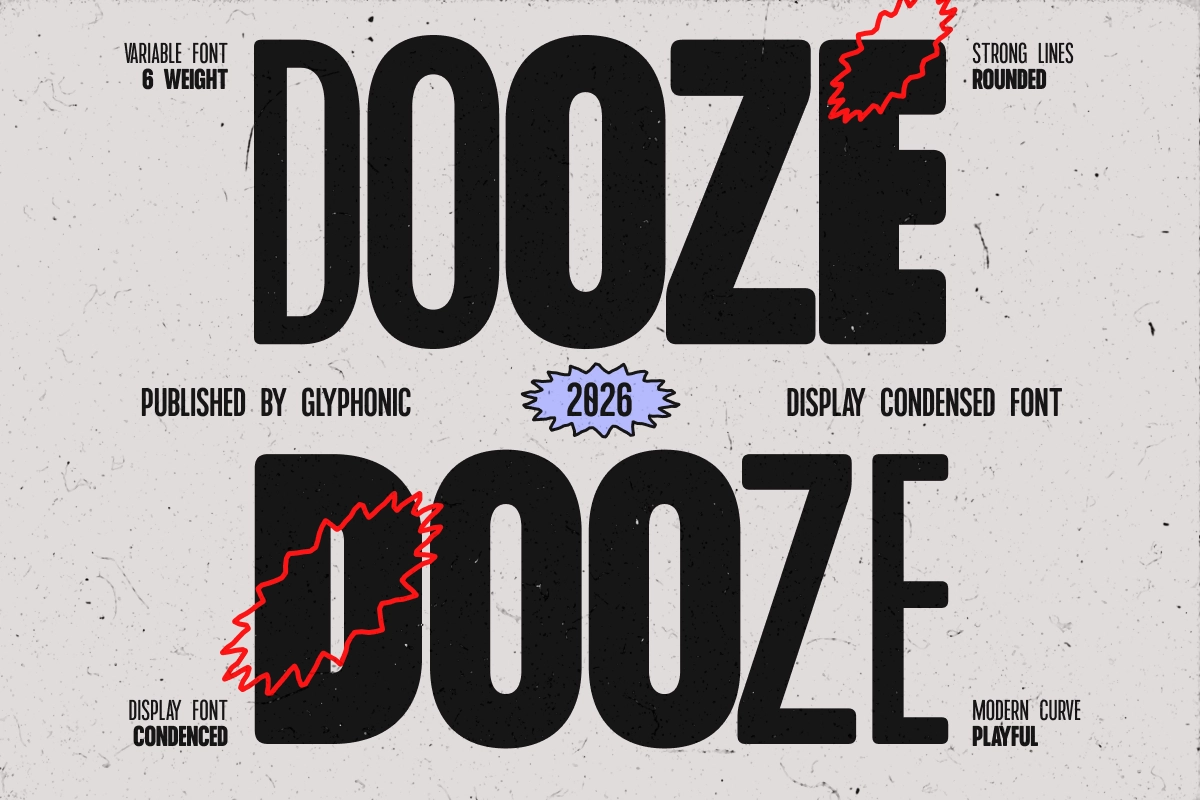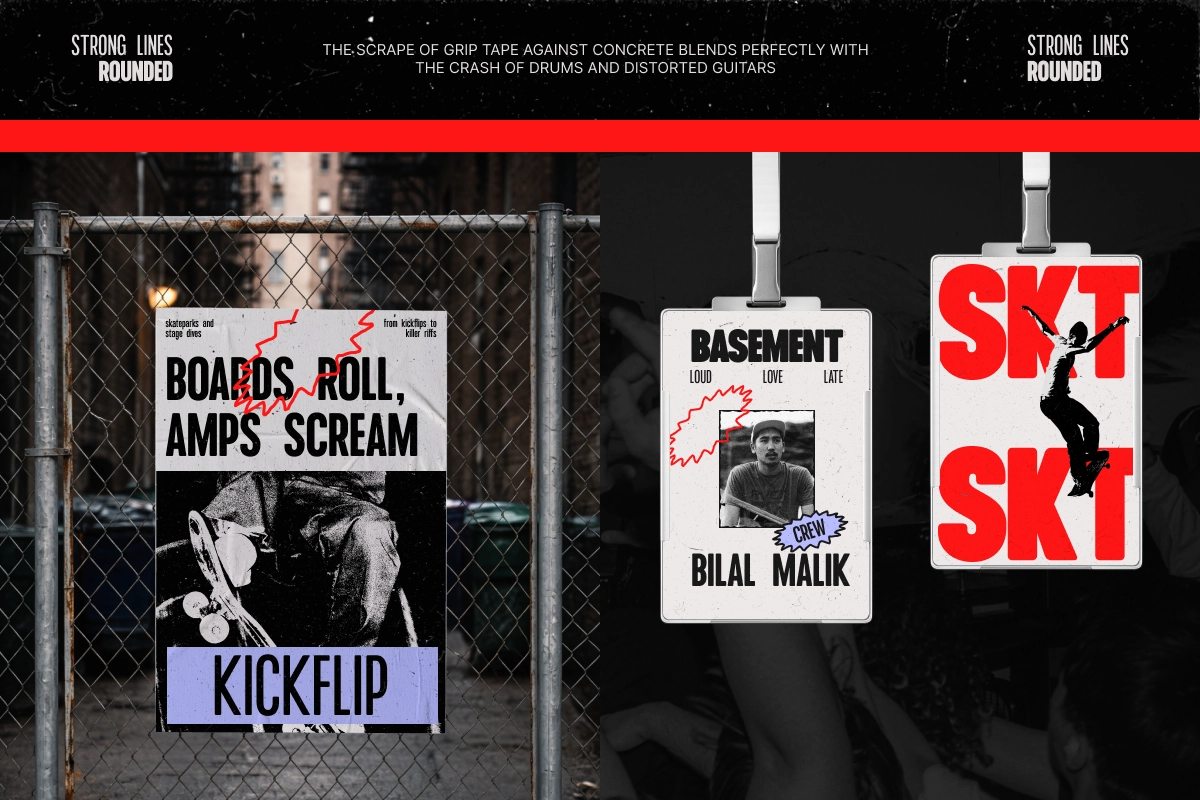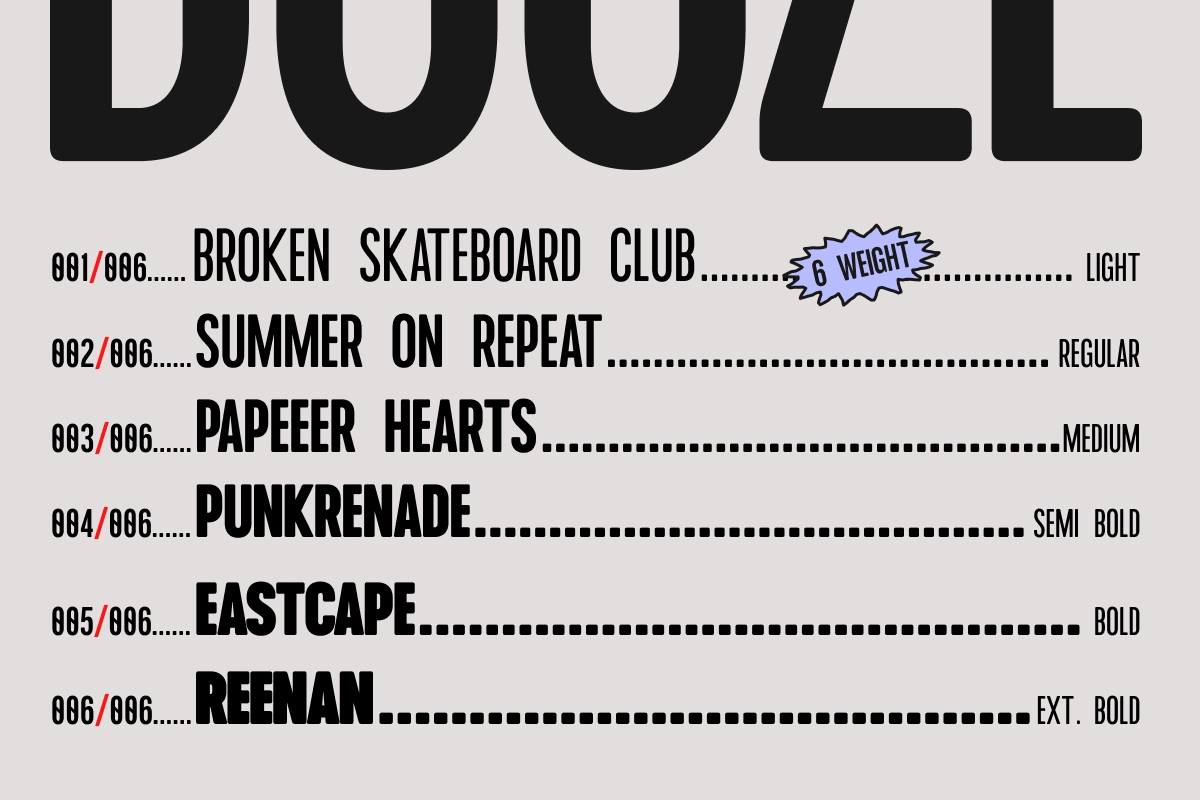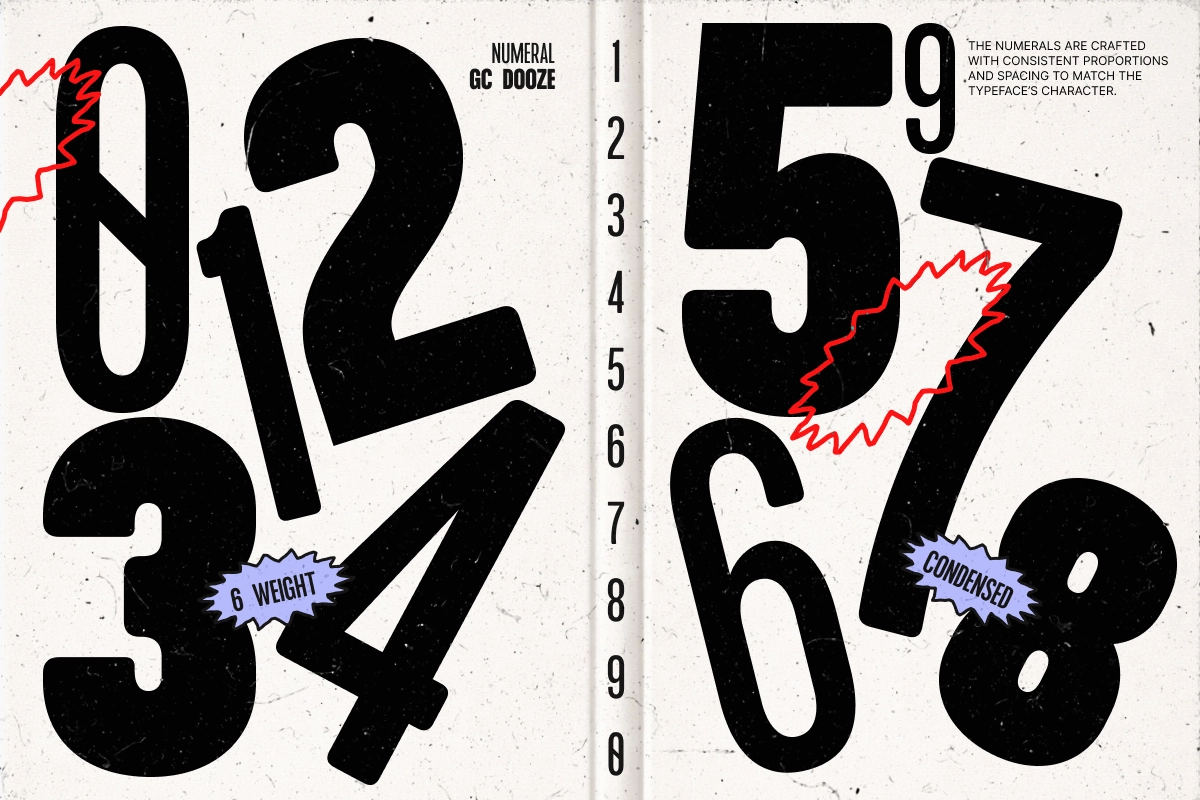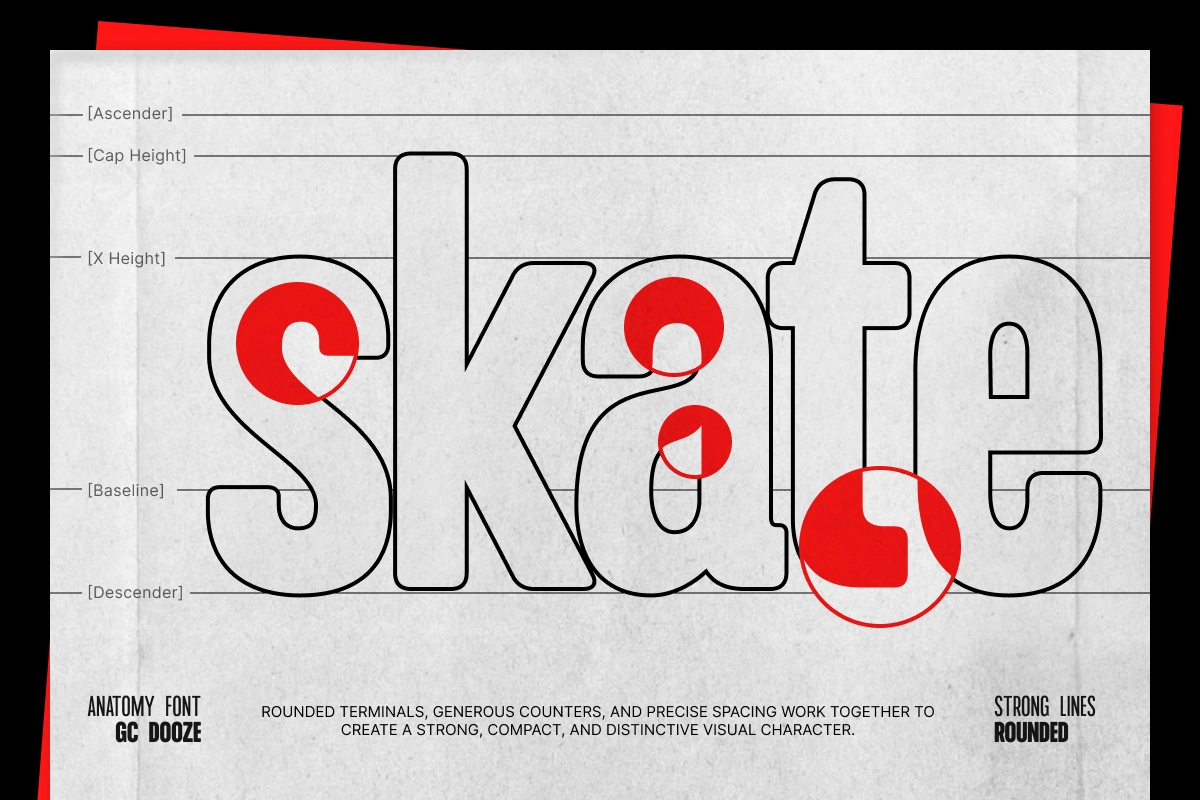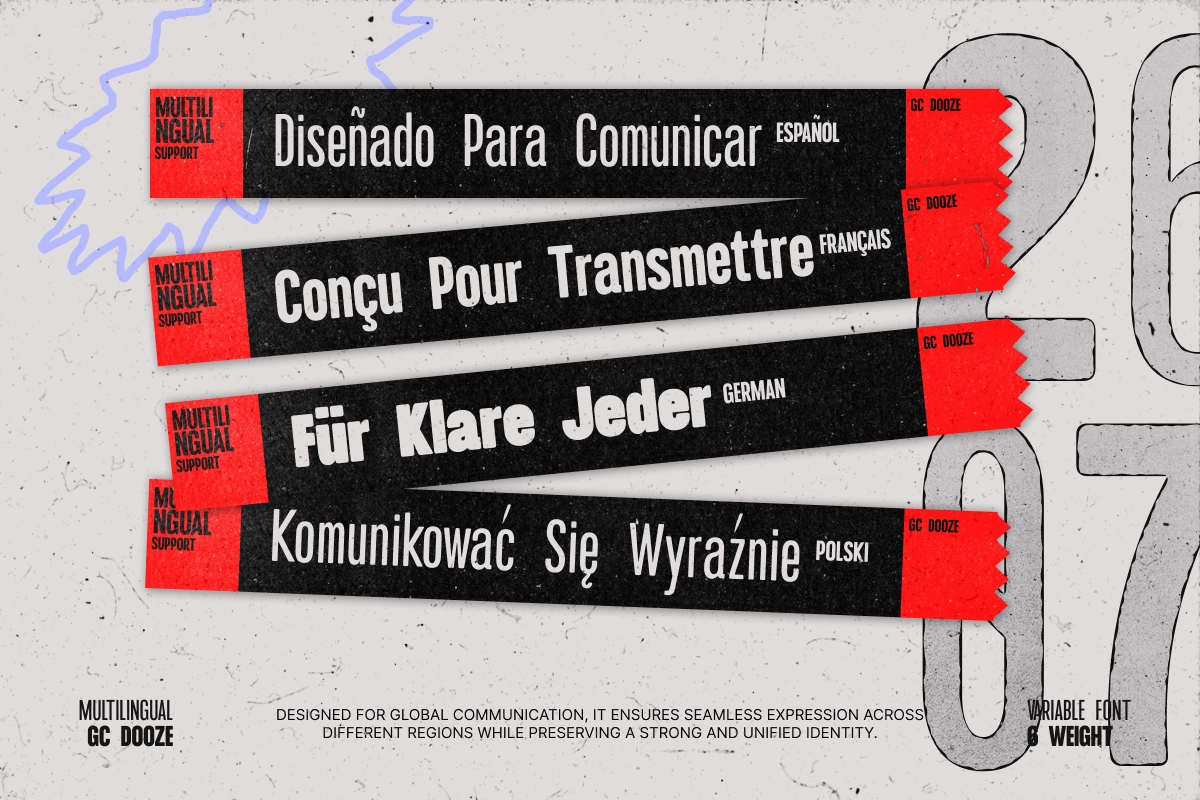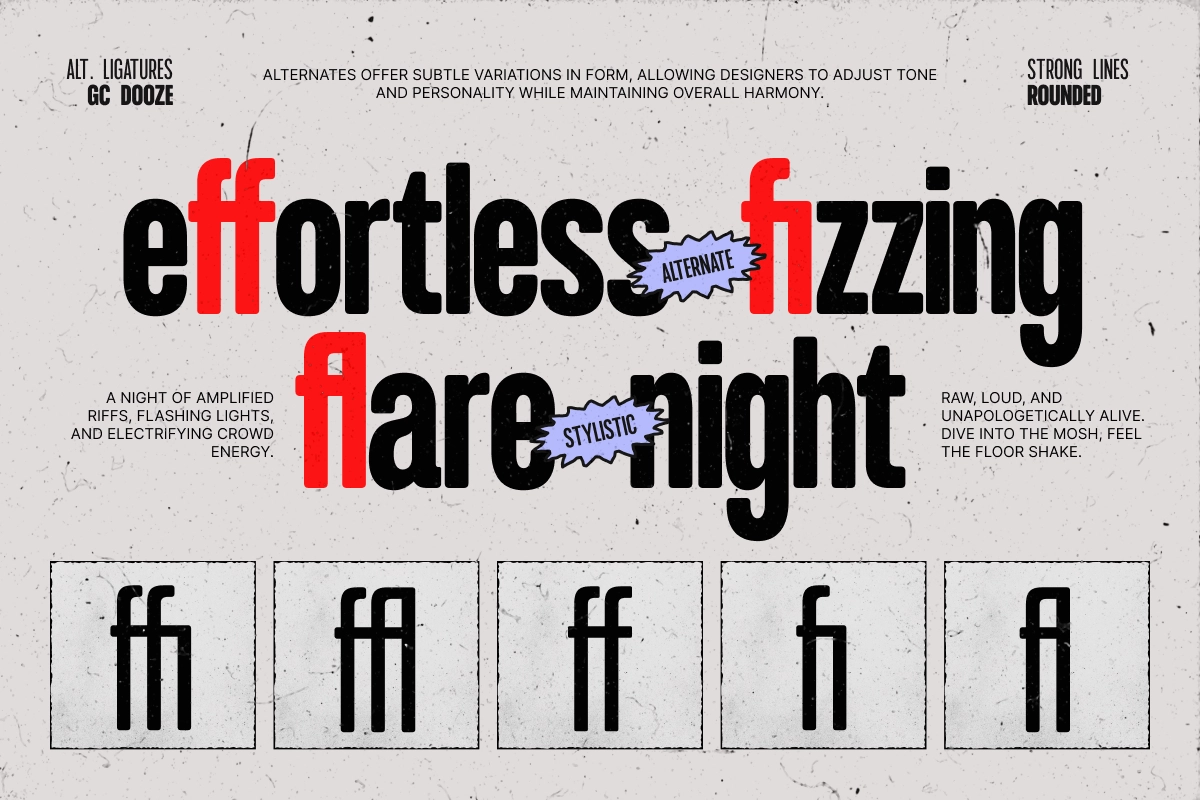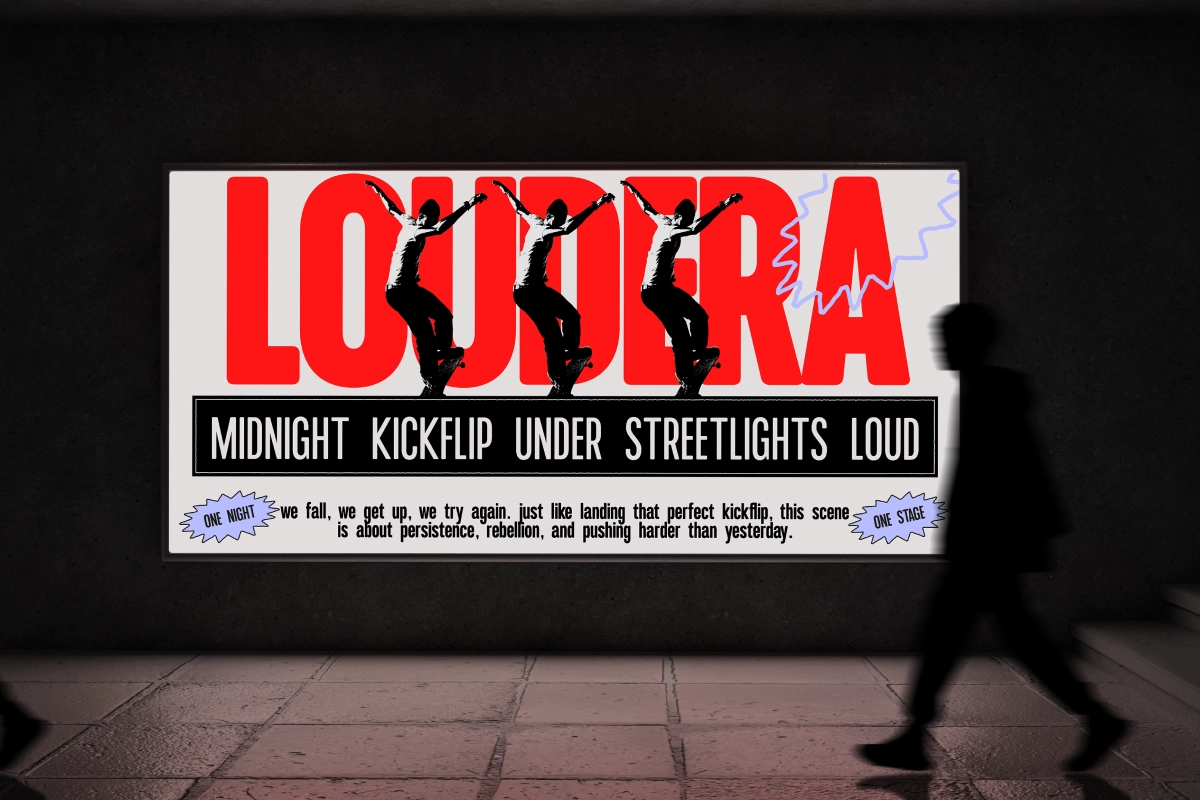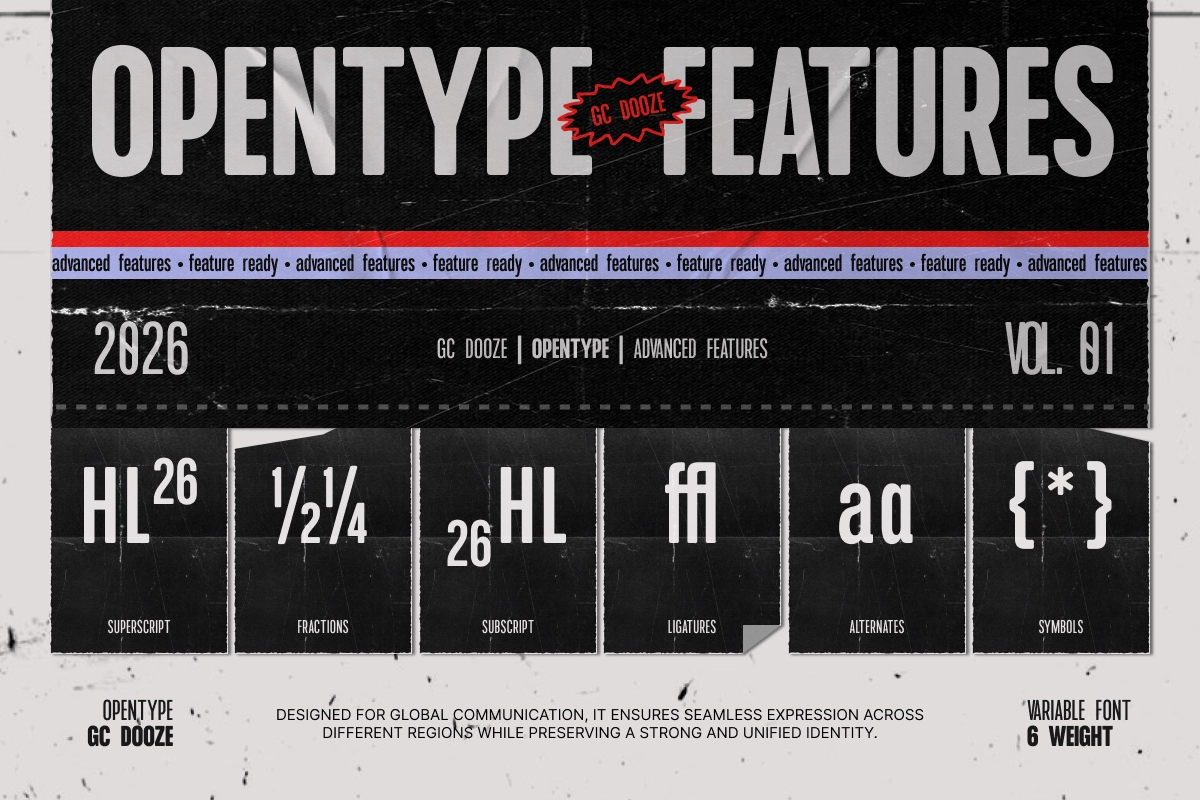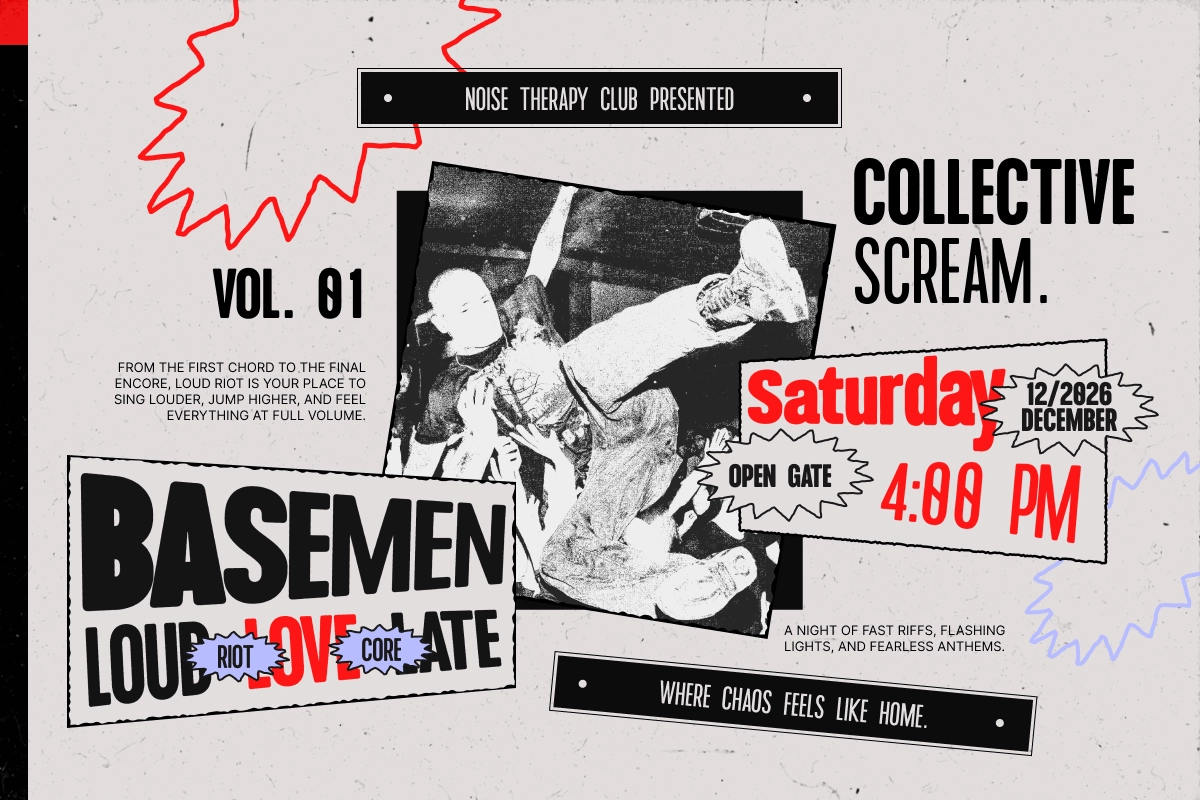
GC Dooze - Variable Condensed Display Font
GC Dooze - Variable Condensed Display Font is a bold condensed typeface that blends strong vertical structure with smooth rounded edges, creating a unique balance between power and playfulness. Its tall, space-efficient proportions make it ideal for tight layouts, while the softened terminals add a friendly and modern character that keeps designs approachable and visually engaging.
Built as a variable font, GC Dooze gives you full control over weight and expression, allowing seamless transitions from heavy, attention-grabbing headlines to more flexible display compositions. It’s perfectly suited for posters, branding, editorial titles, and contemporary creative projects that require both impact and personality.
• Variable font
• Uppercase & lowercase letters
• Numbers & punctuation